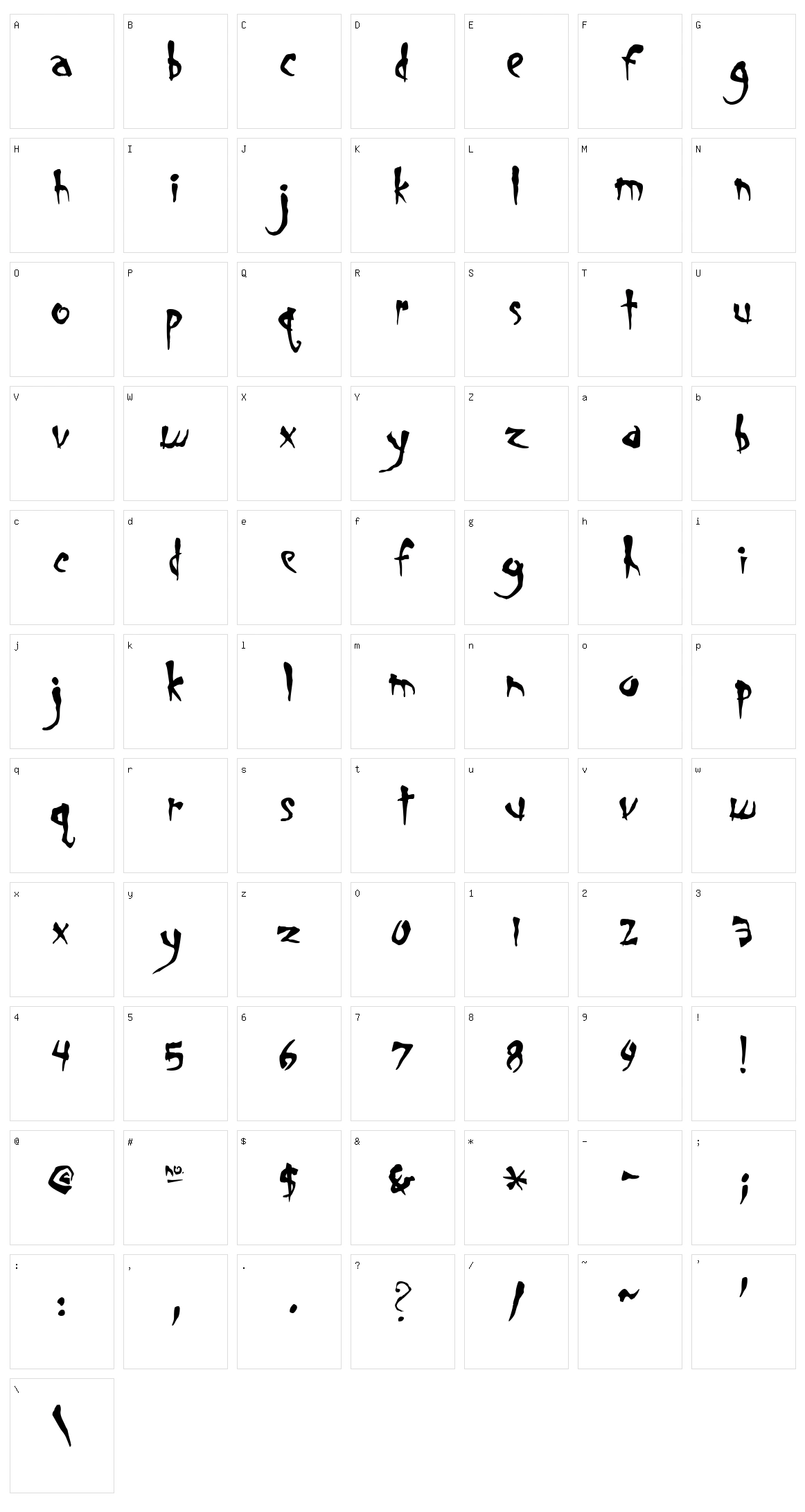
This font could be used for something dark and mysterious (like Stephen
KingÕs F13) but itÕs really quite a happy font. It was designed by a
power-hungry Red Dwarf fan.